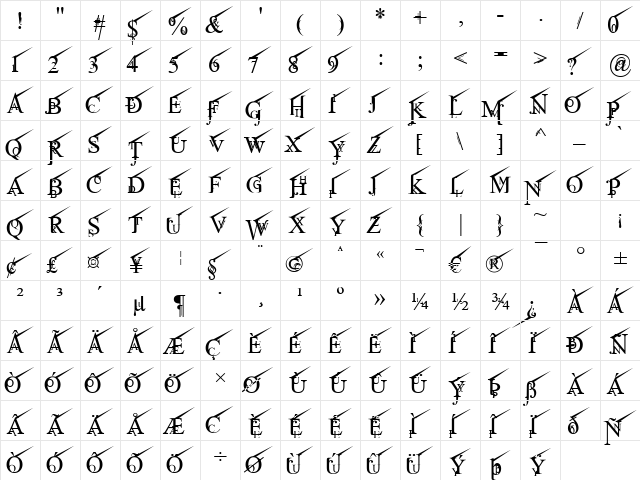
Jean Splice UpRite Regular
Design Context for Jean Splice UpRite Typeface
Jean Splice UpRite is a composed and adaptable typeface that performs quietly and consistently across a wide range of design contexts.